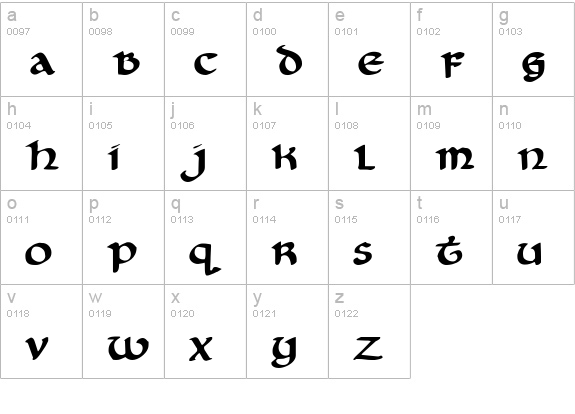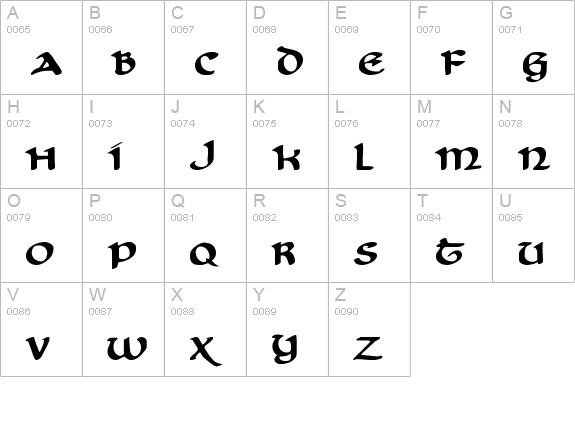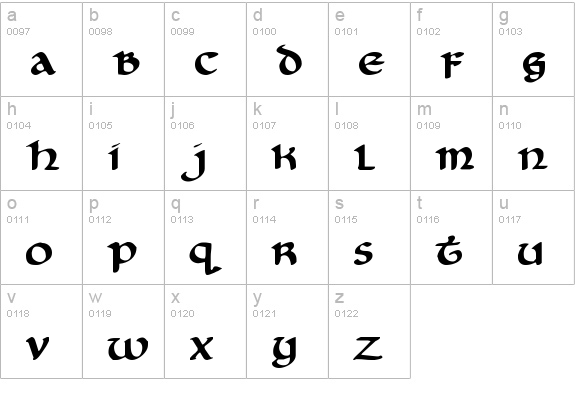
Cry Uncial Font Details
Cry Uncial font is a charming and unique typeface that draws inspiration from ancient Celtic calligraphy. Its ornate and intricate design features elaborate swirls and loops, making it perfect for adding a touch of elegance to your projects. The distinctive letterforms of Cry Uncial exude a sense of history and tradition, while still maintaining a modern and sophisticated aesthetic. What sets Cry Uncial font apart is its versatility - it can be used for a wide range of design projects, from invitations and greeting cards to branding and packaging. Whether you're looking to add a touch of whimsy or a sense of old-world charm, Cry Uncial is sure to make a statement. Best of all, Cry Uncial font is completely free to download at FontsMarket.com. So go ahead and give your designs that extra special touch with this beautiful and timeless typeface.